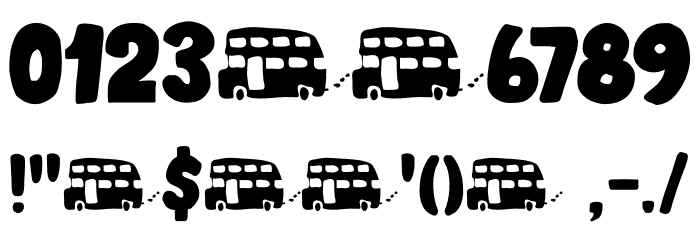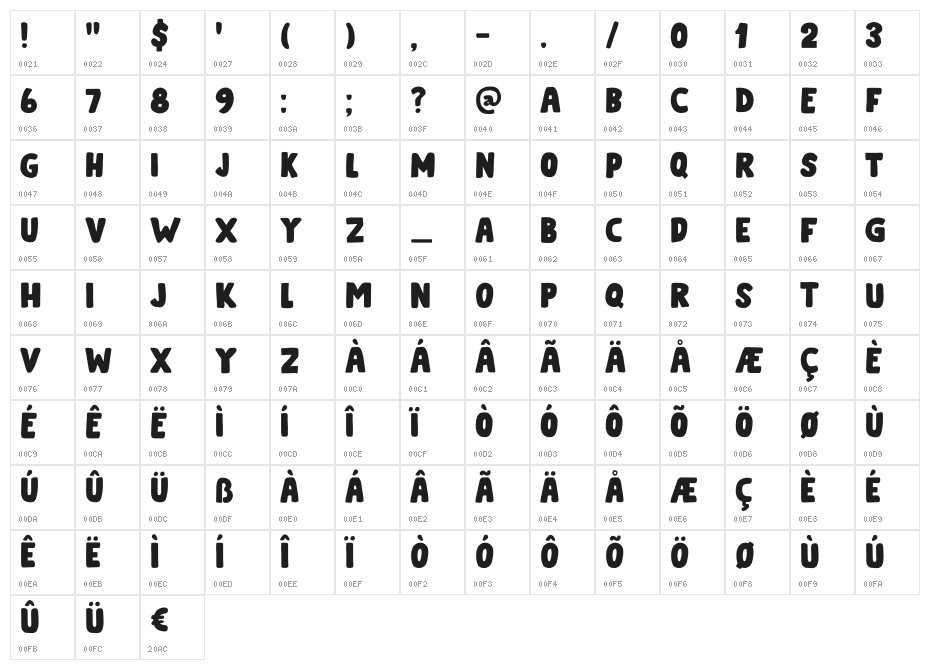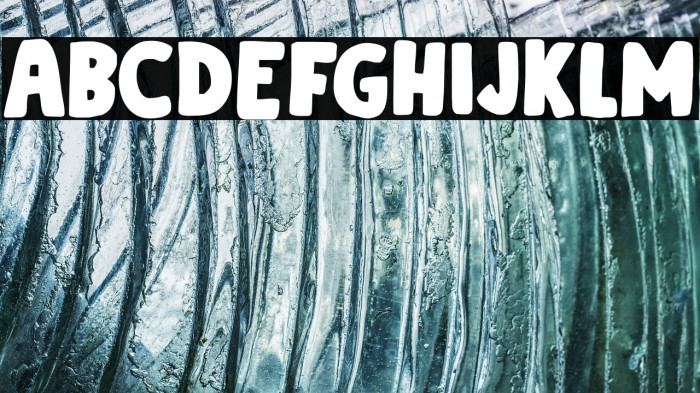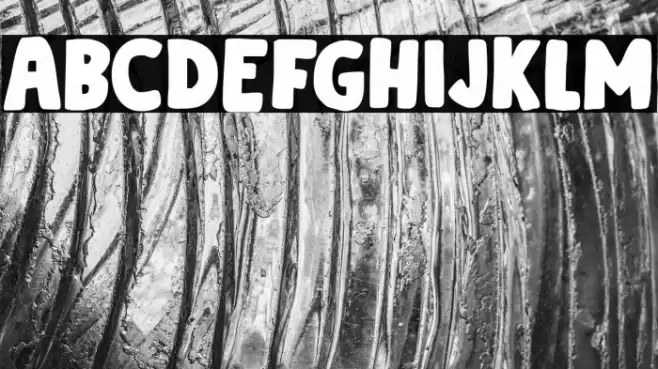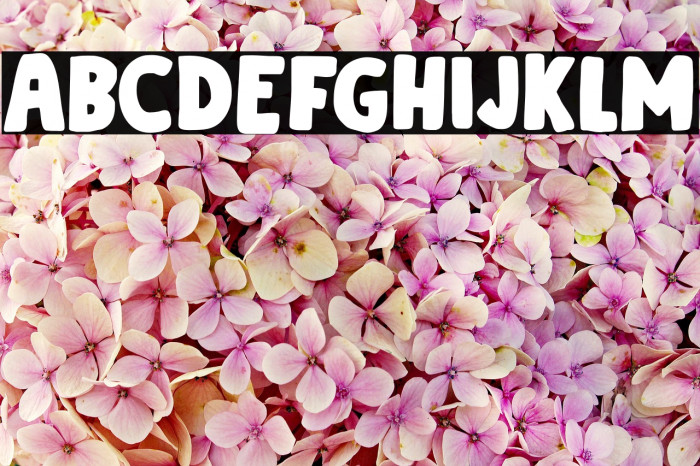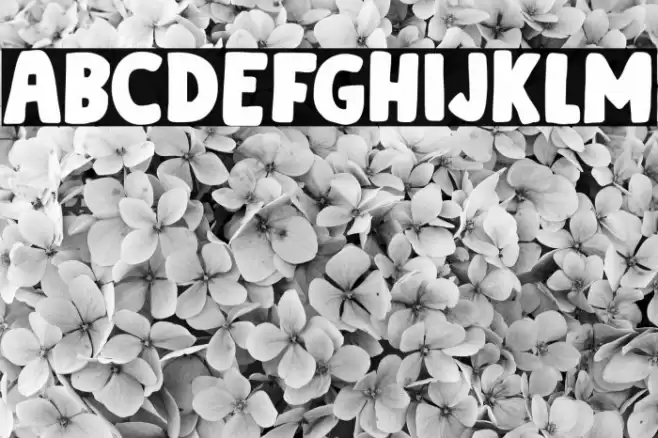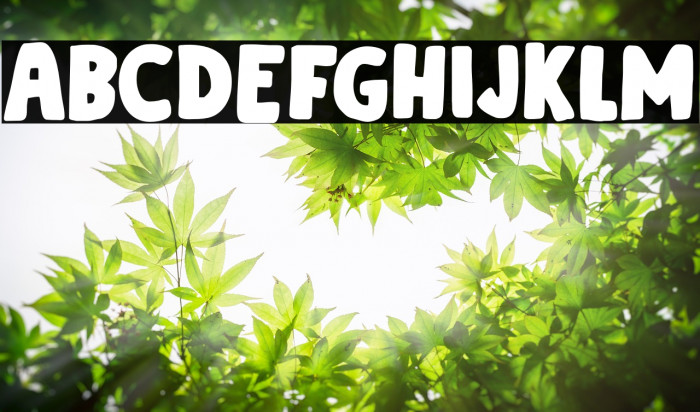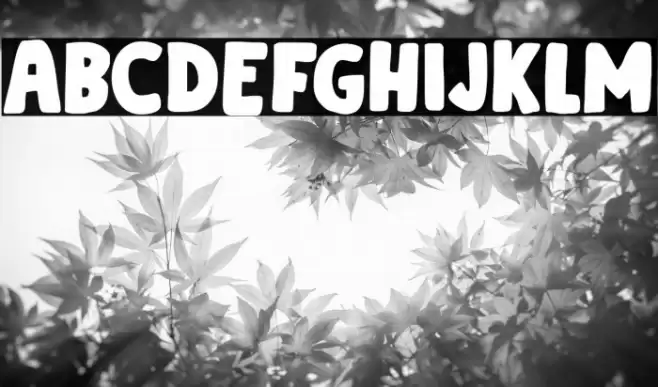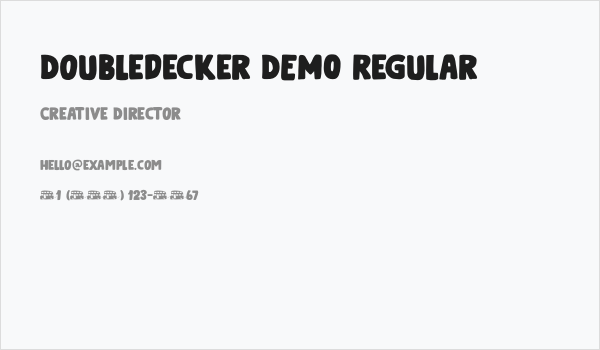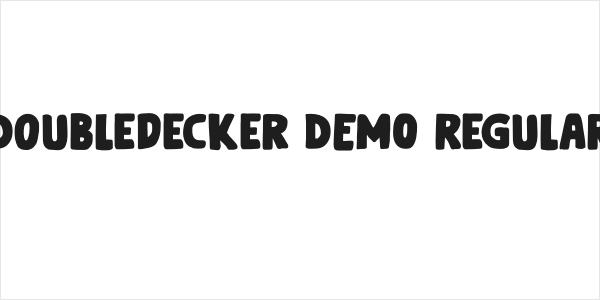
Doubledecker DEMO Regular Font
Doubledecker DEMO Regular Description
This playful and bold font features rounded, thick letters that convey a sense of fun and creativity. The characters are uniformly bold, with a slightly whimsical touch that makes them stand out. The font includes both uppercase and lowercase letters, numbers, and a selection of special characters. The unique aspect of this font is the inclusion of a double-decker bus symbol, which adds a distinctive and thematic element to the design. The overall style is casual and friendly, making it suitable for projects that require a lively and engaging typeface.
| Overall Style | Playful, Casual |
| Proposed Projects | Ideal for children's books, playful branding, event posters, and themed designs. |